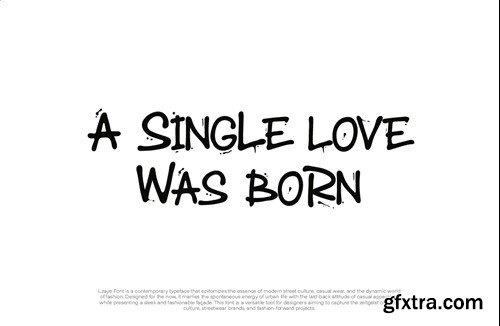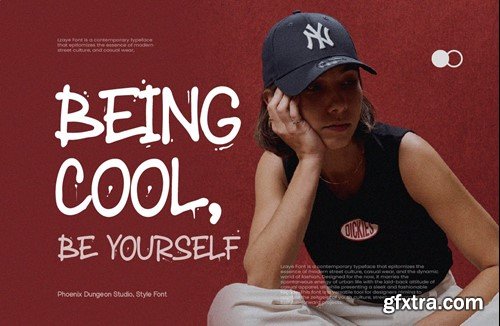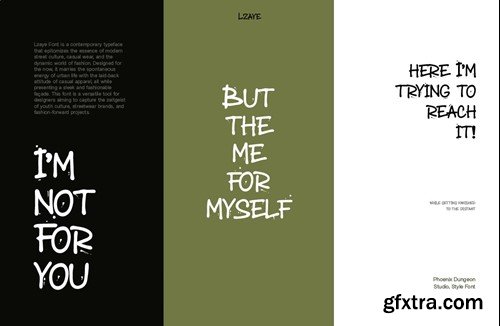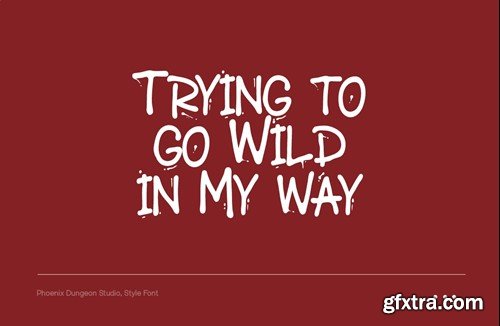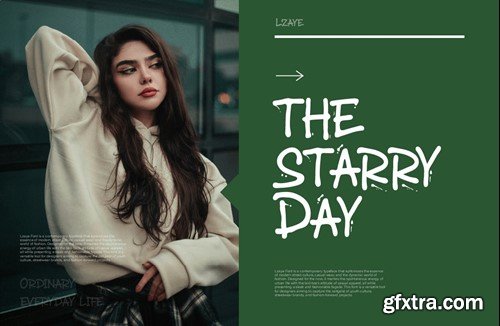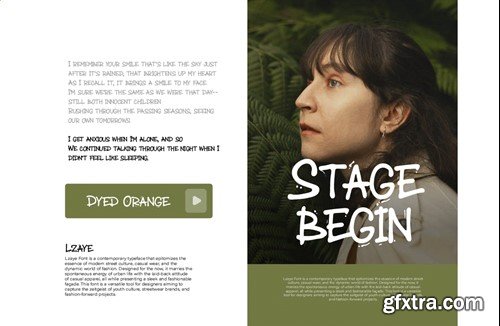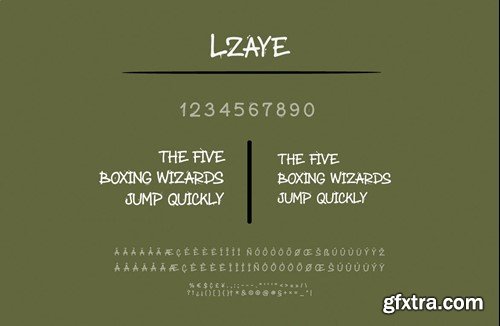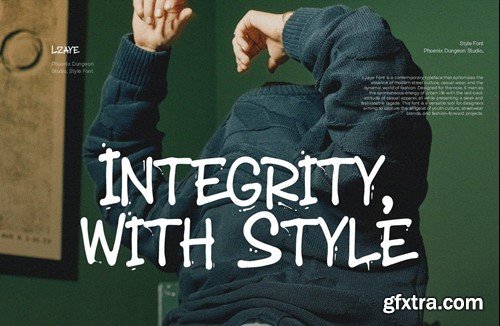
Lzaye Font
Lzaye Font is a contemporary typeface that epitomizes the essence of modern street culture, casual wear, and the dynamic world of fashion. Designed for the now, it marries the spontaneous energy of urban life with the laid-back attitude of casual apparel, all while presenting a sleek and fashionable façade. This font is a versatile tool for designers aiming to capture the zeitgeist of youth culture, streetwear brands, and fashion-forward projects. What’s in the package : Thank you...